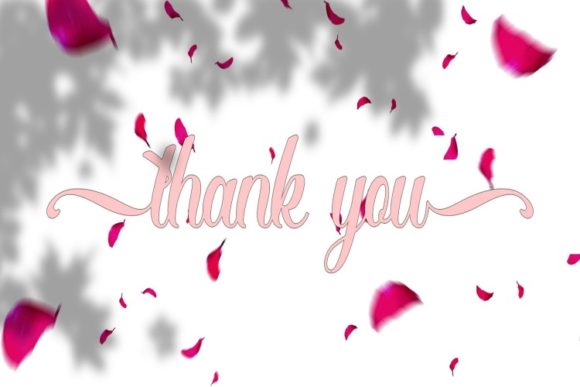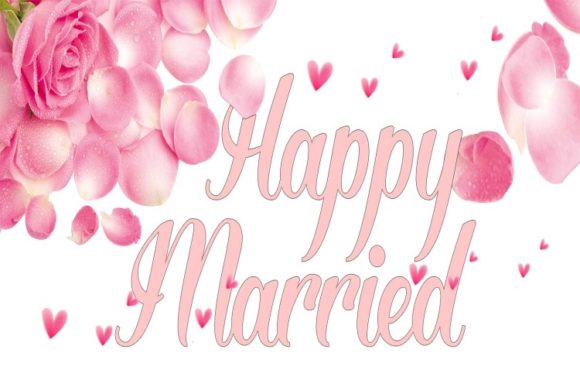
About Algaida Font
Algaida is a beautiful modern script font with beginning and ending swashes. Very suitable for the feel of Christmas, Valentine’s, Wedding, Birthdays, etc. This font is PUA encoded which means you can access all of the glyphs and swashes with ease!